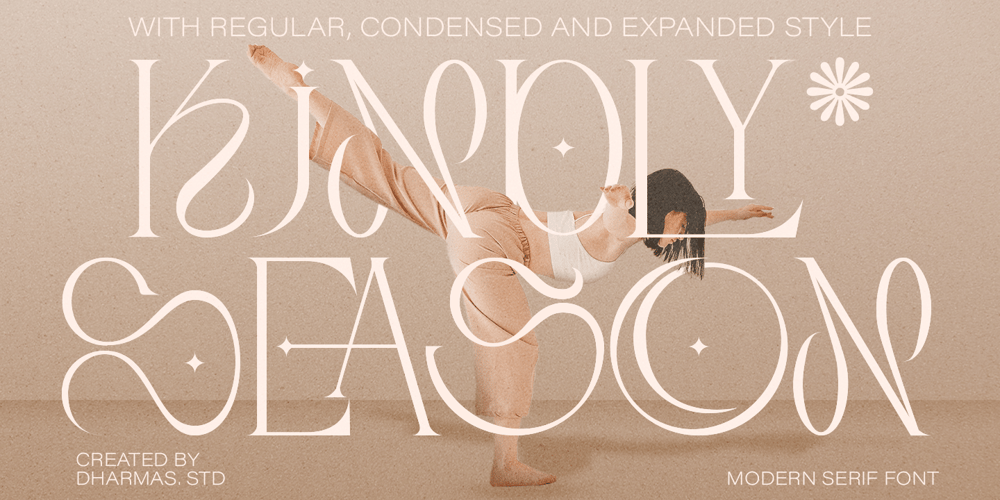
Kindly Season Font Family was designed by Ahmad Jamaludin and published by Ahmad Jamaludin. Kindly Season contains 3 styles and family package options. Present to you for New Modern Decorative Serif, Kindly Season!Kindly Season has a lowercase that is a unique uppercase letter, You can easily correct this by replacing the alternate letters with uppercase. It’s very simple, isn’t it?Comes in 3 versions: Condensed, Regular, and Expanded, with a whopping total of 60+ unique ligatures, it’s easy to achieve custom typography for stunning logos, headlines, and quotes.Kindly Season has a unique ‘S’ that is perfect for headers in projects; it can even be used for logos. Additionally, Kindly Season features other cool, decorative-style letters that add a touch of creativity. Type in all lowercase in the type tester to try it out!What’s Included? Kindly Season Main File Condensed, Regular and Expanded 60+ Ligatures Instructions (Access special characters in all apps, even in Cricut Design) Accessible in Adobe Illustrator, Adobe Photoshop, Microsoft Word even Canva! PUA Encoded Characters. Fully accessible without additional design software Language Support: Danish, English, Estonian, Filipino, Finnish, French, Friulian, Galician, German, Gusii, Indonesian, Irish, Italian, Luxembourgish, Norwegian Bokmål, Norwegian Nynorsk, Nyankole, Oromo, Portuguese, Romansh, Rombo, Spanish, Swedish, Swiss-German, Uzbek (Latin)Thank youDharmas Studio